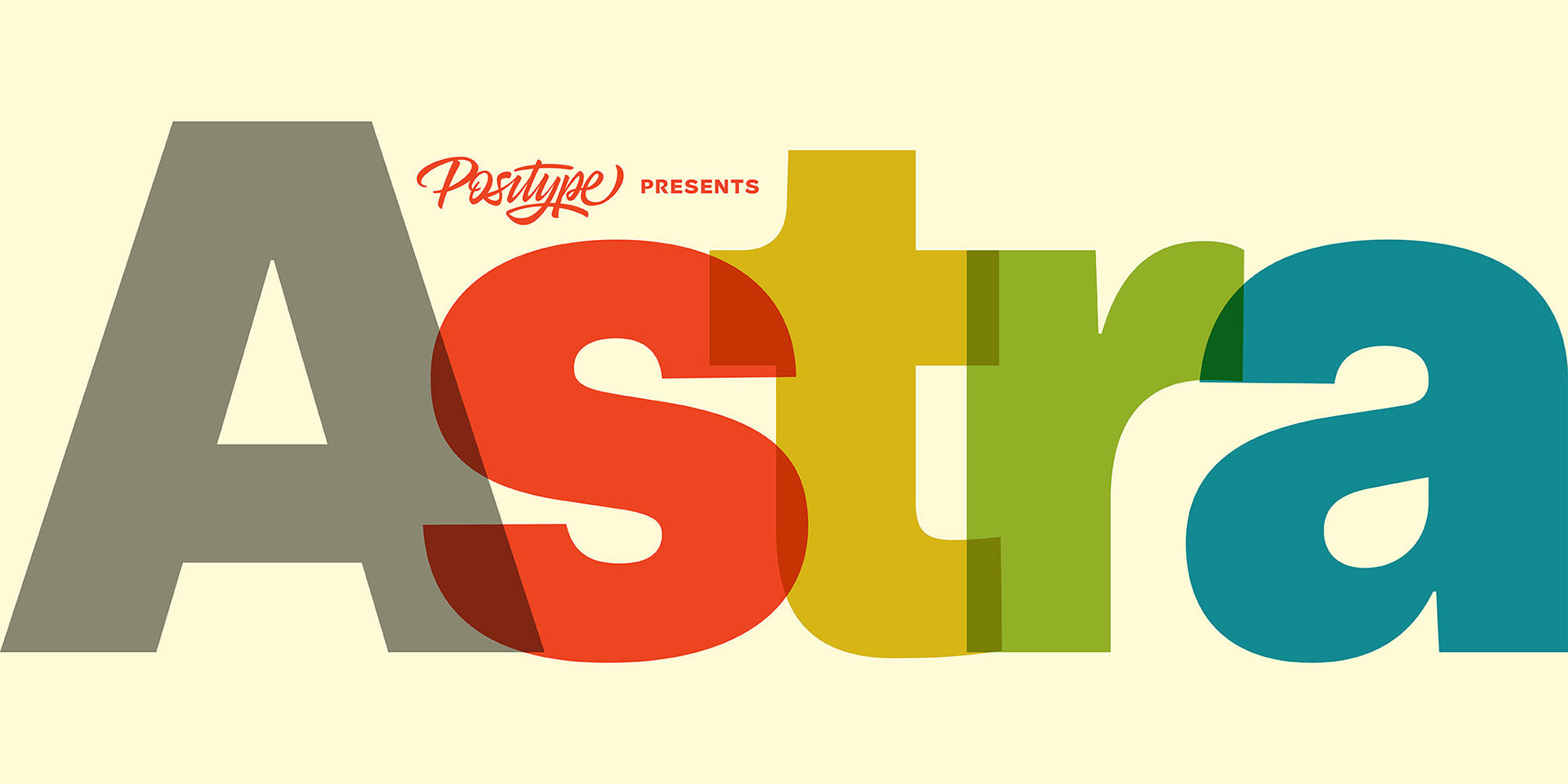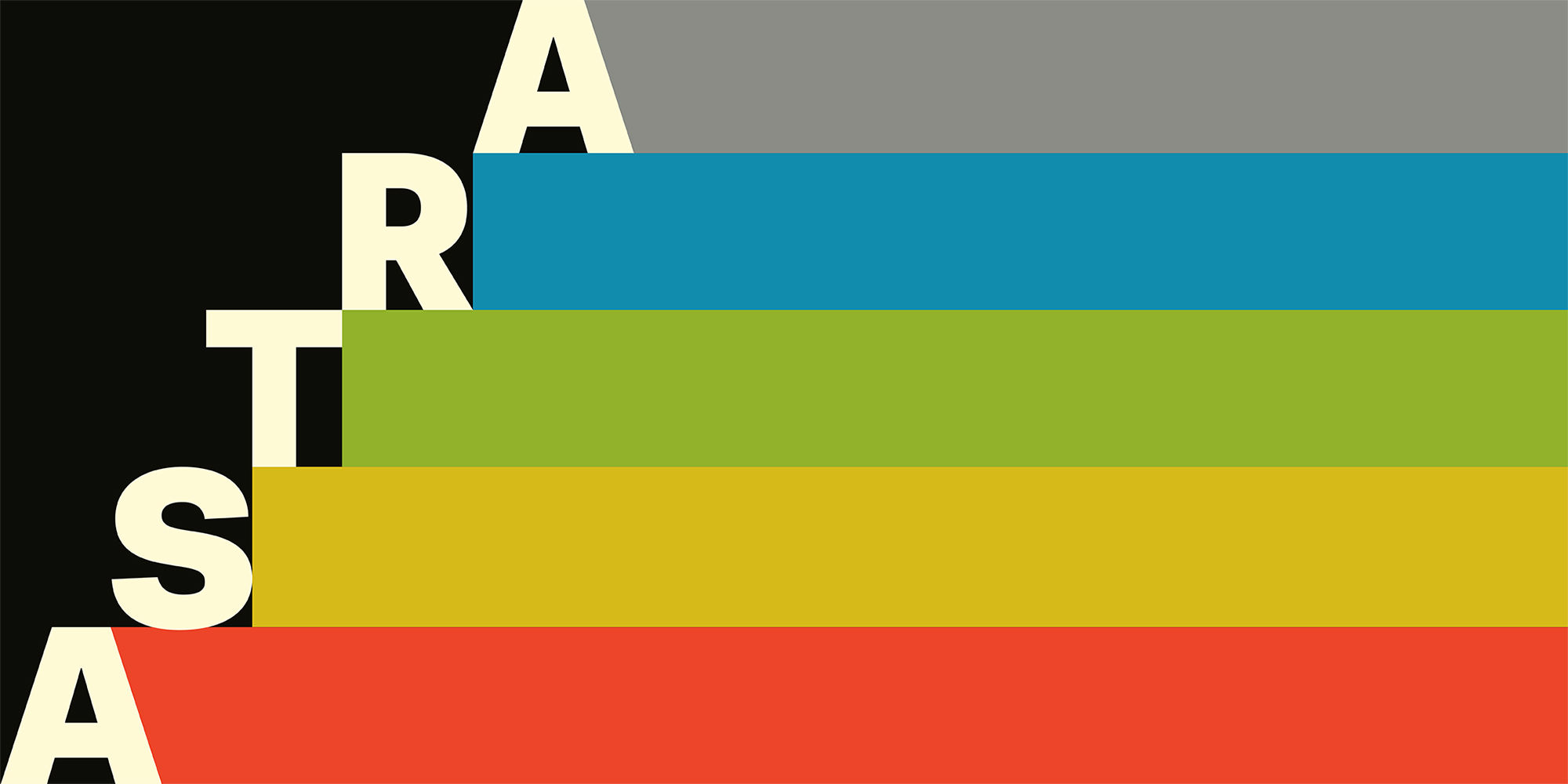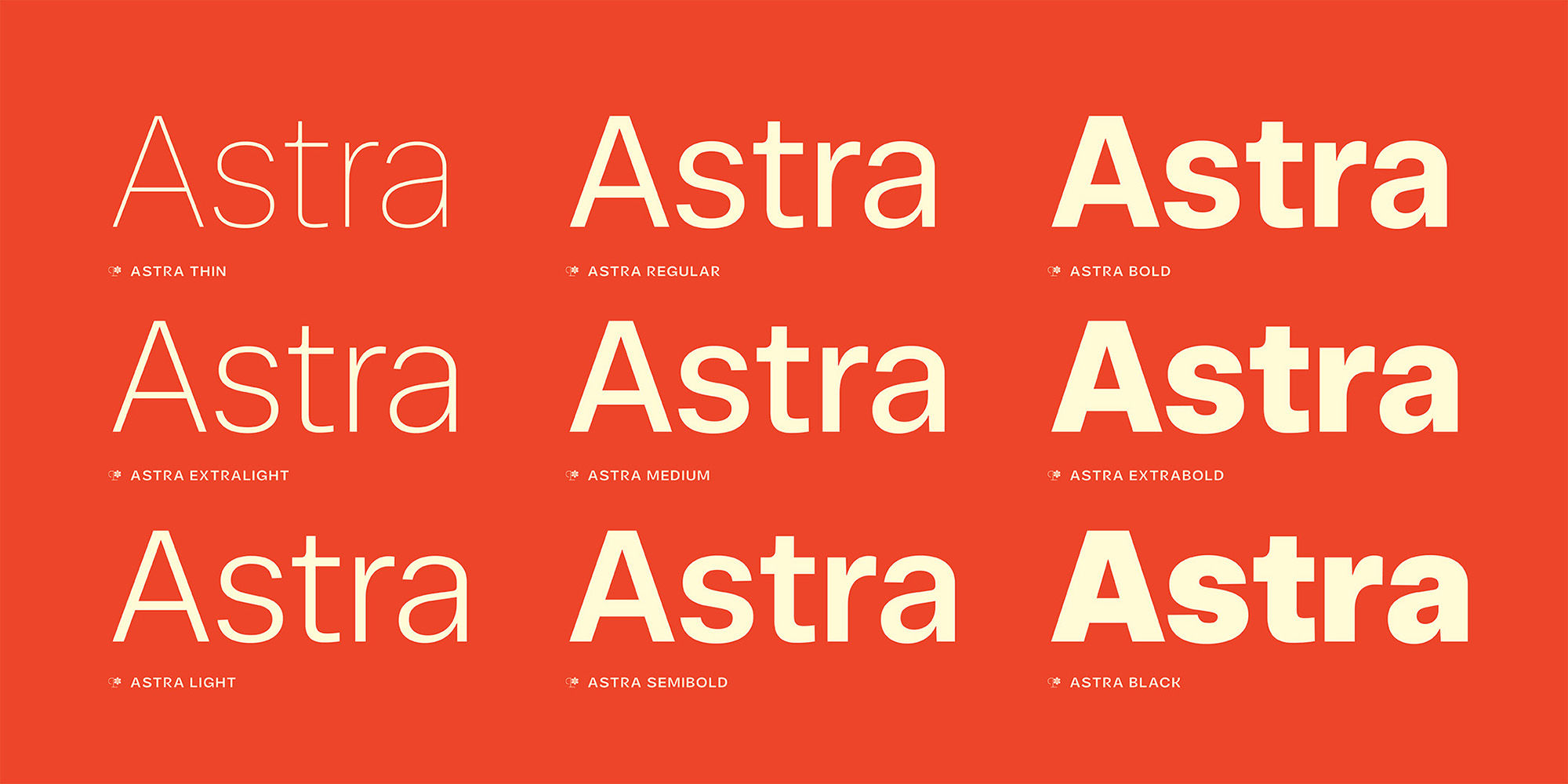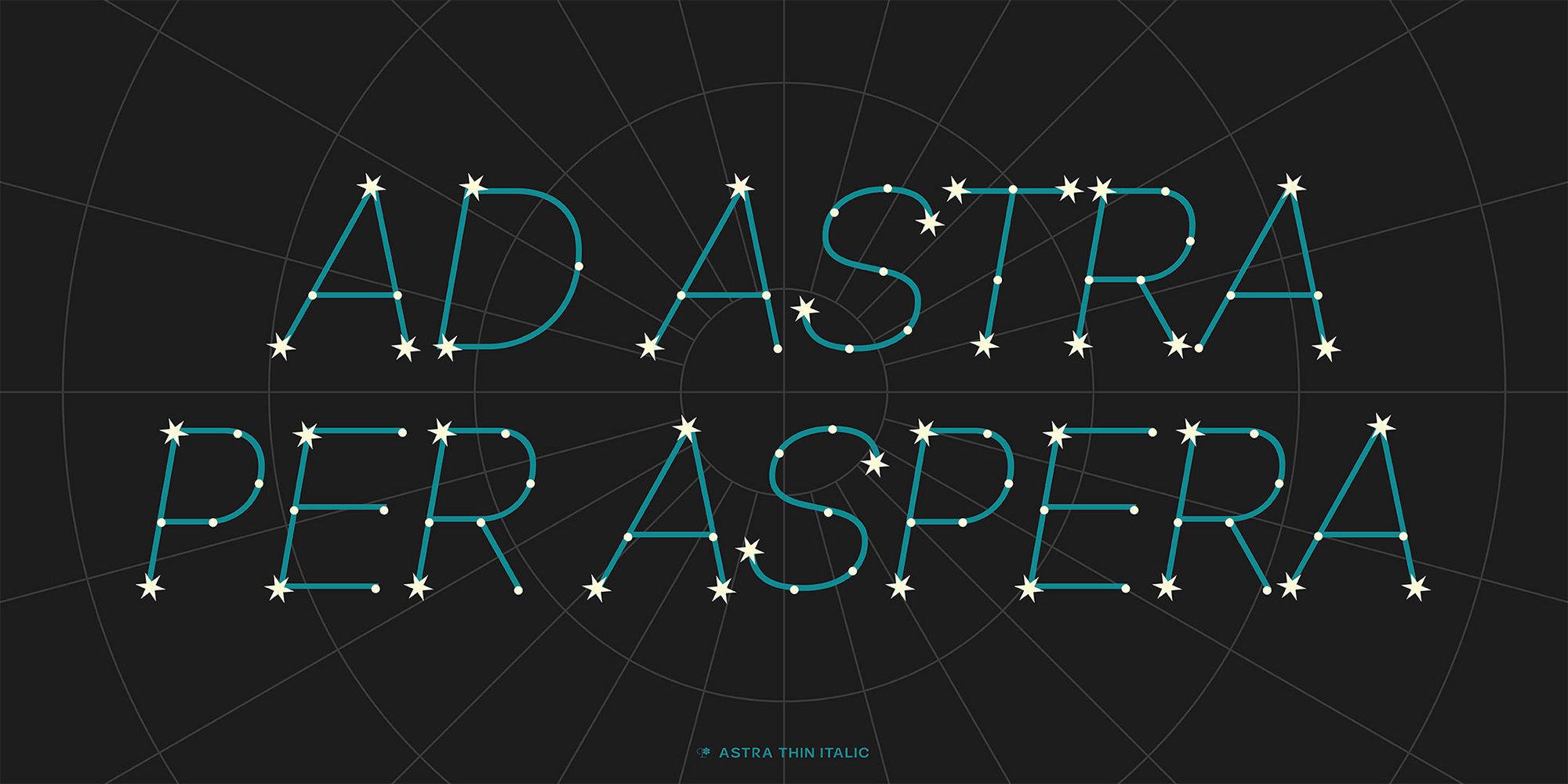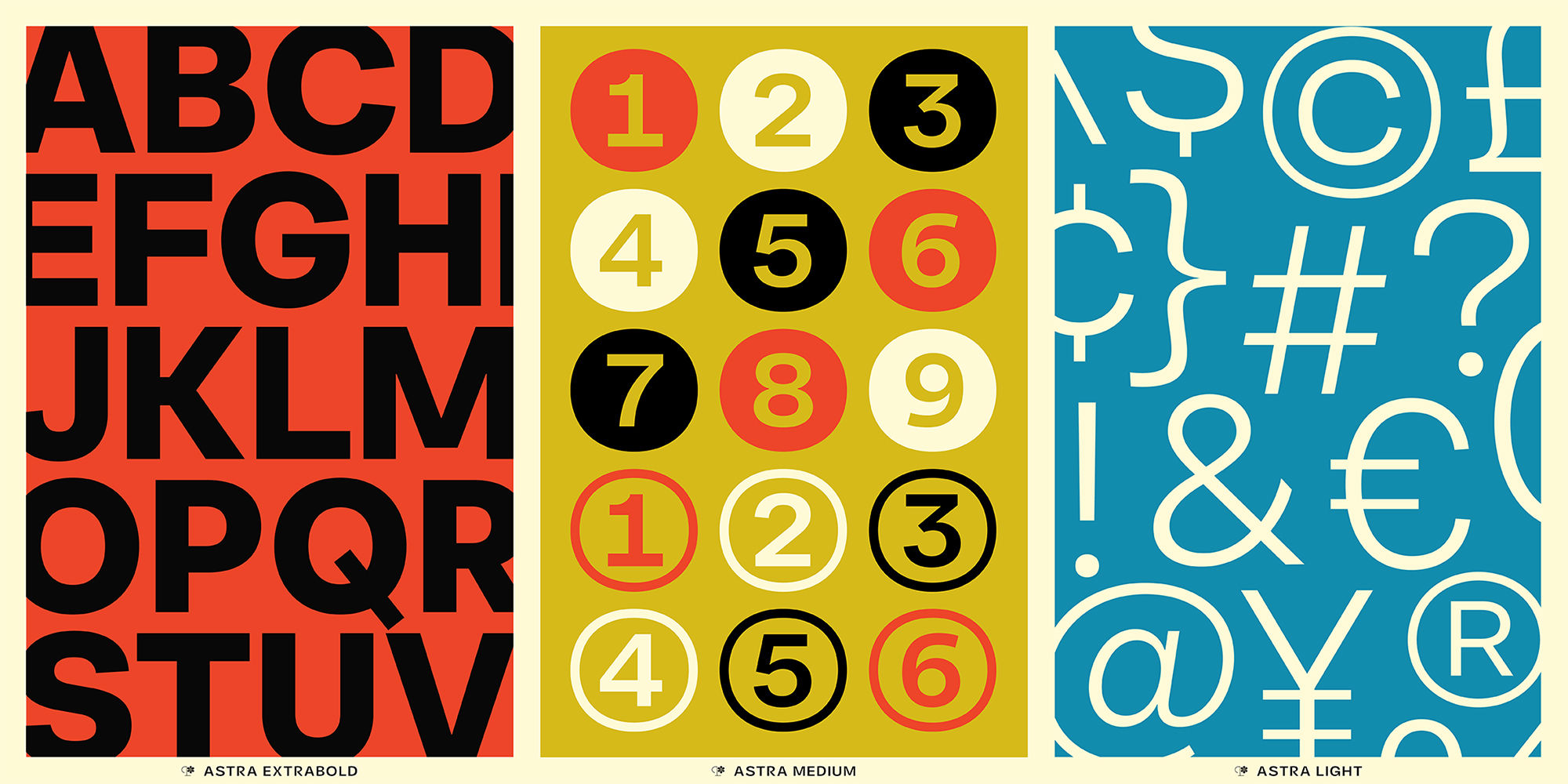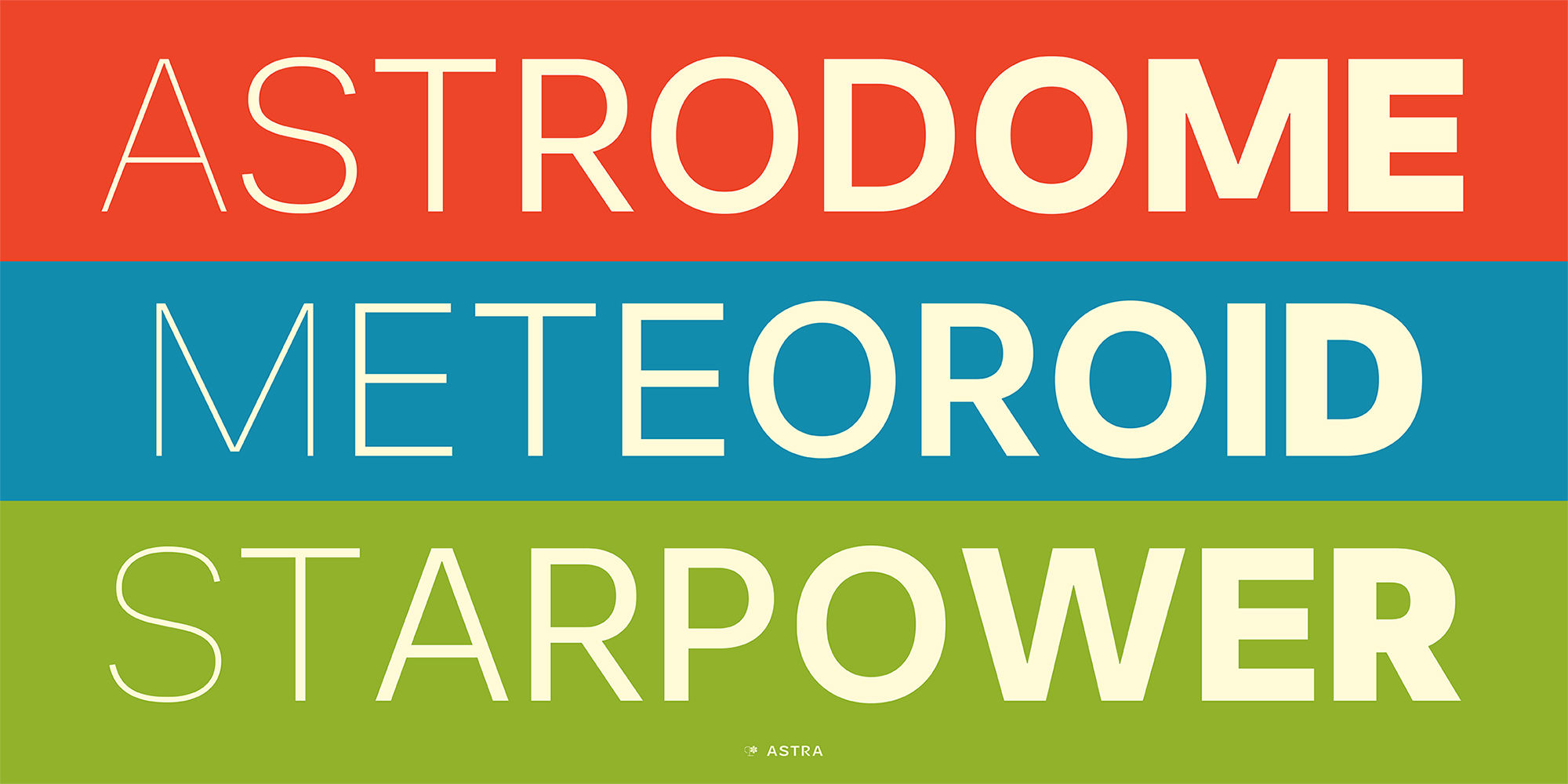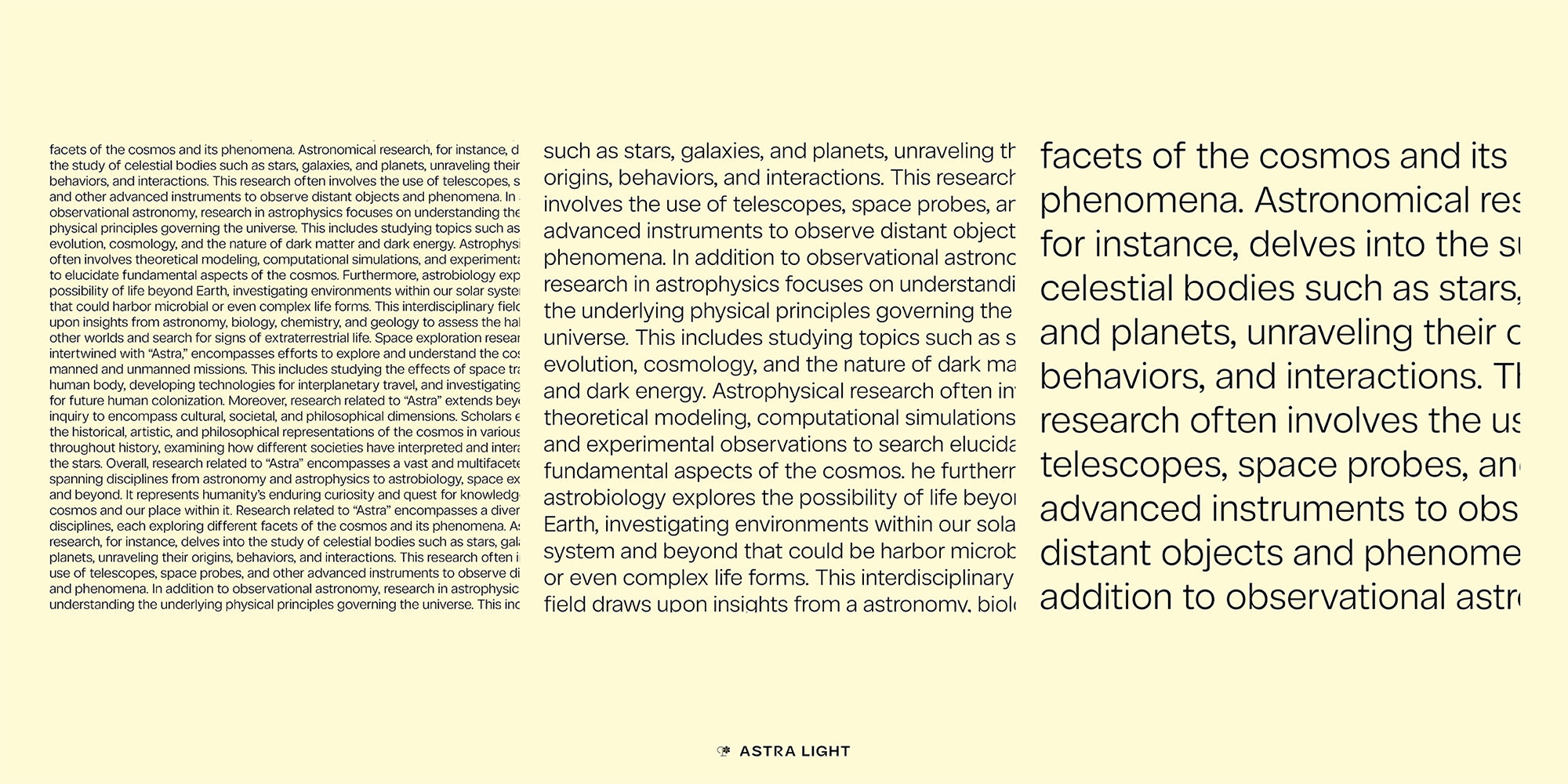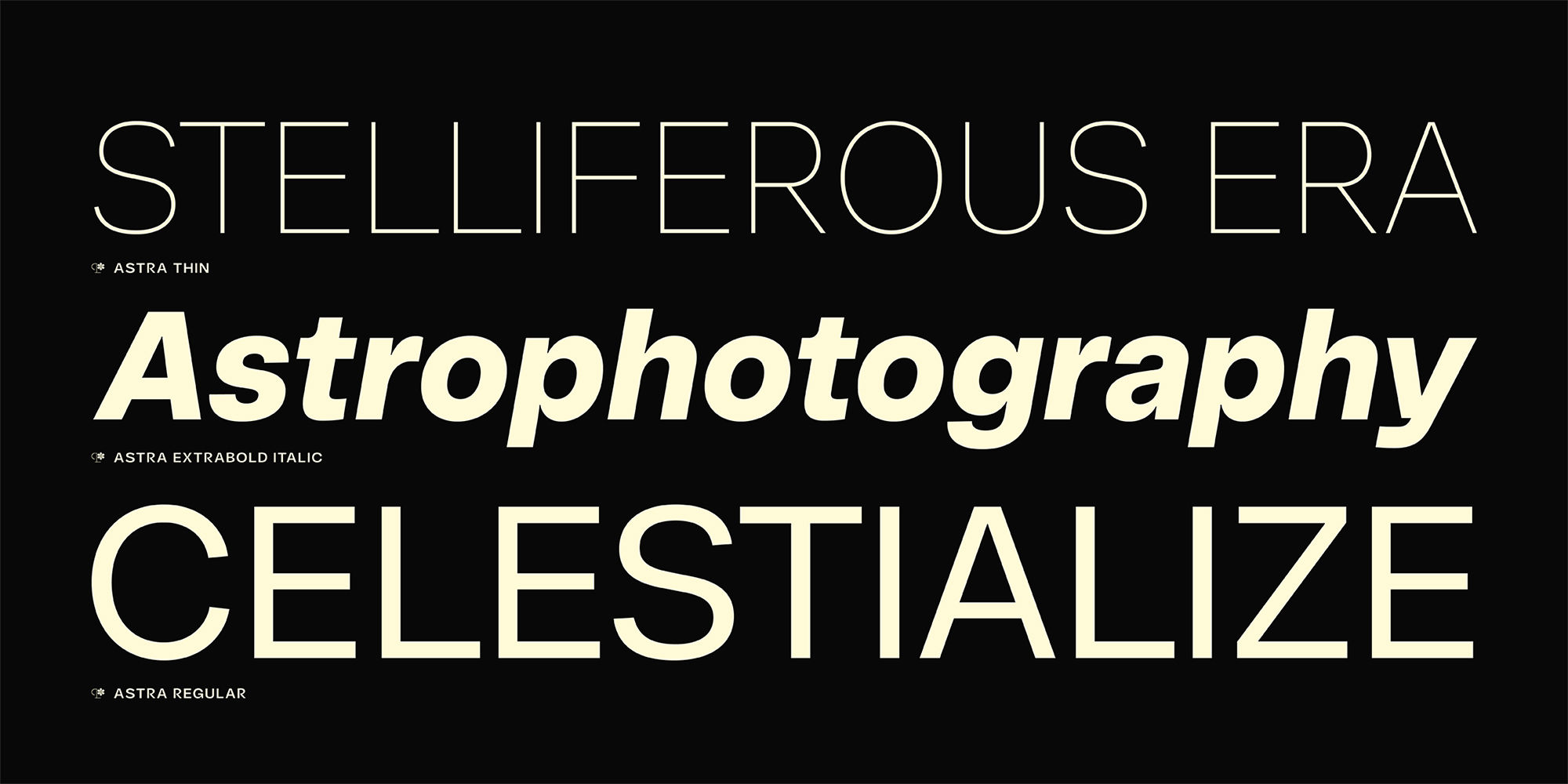
Astra
Initial Release:2024
Styles:18
Astra is a sophisticated geometric sans serif typeface, offering 9 weights that range from delicate thin to robust bold. Its design beautifully merges geometric precision with subtle humanist details, creating a clean yet inviting appearance. This balance ensures Astra is versatile, making it ideal for both branding and editorial projects. The typeface exudes modernity and elegance, appealing to designers seeking a fresh and refined font to elevate their work.